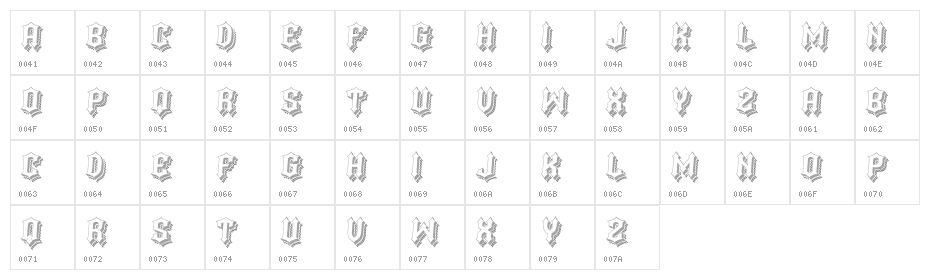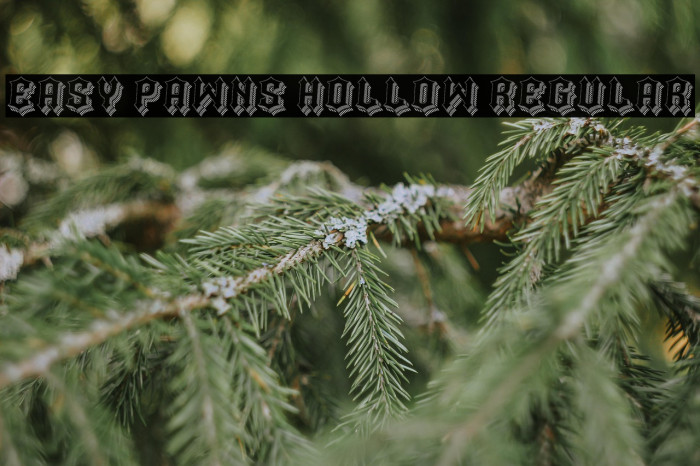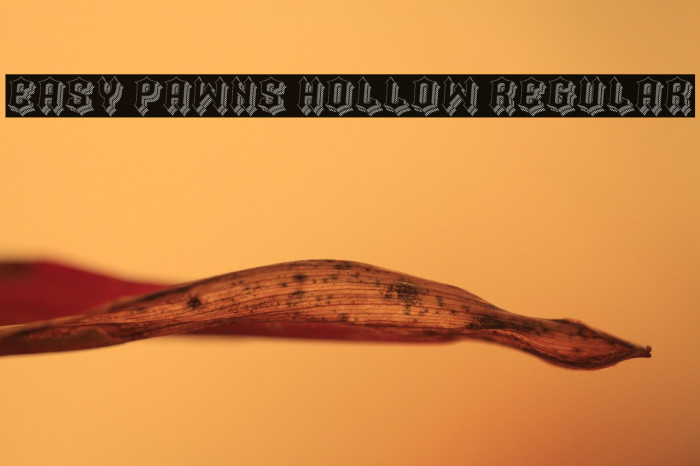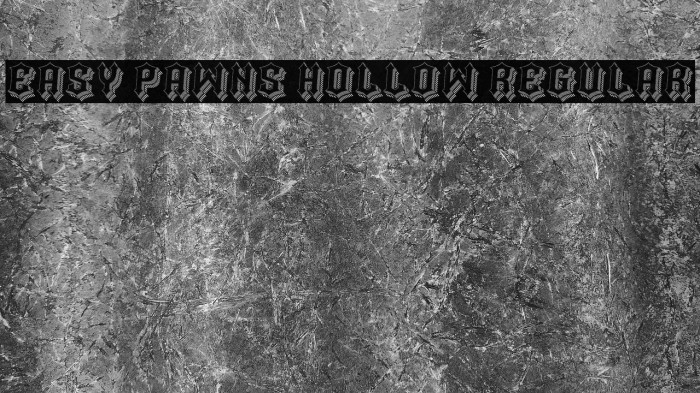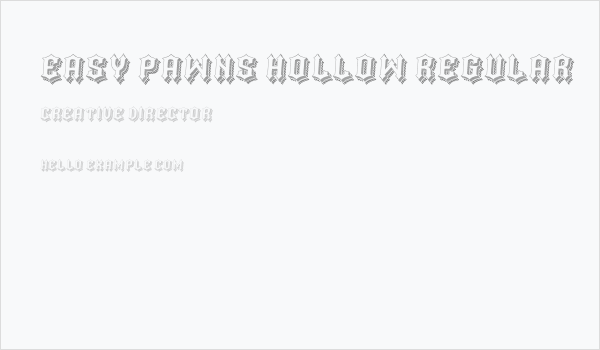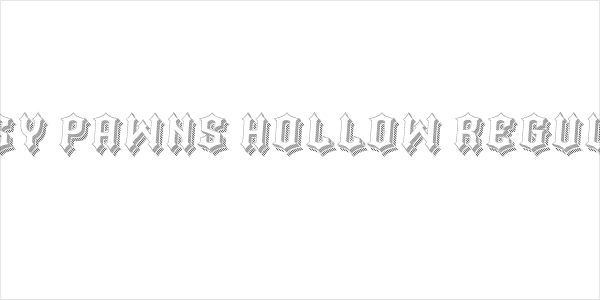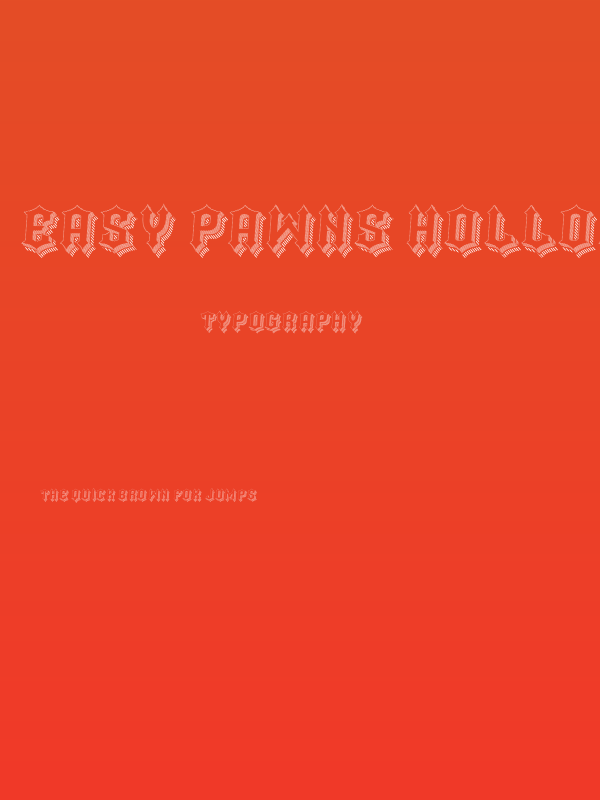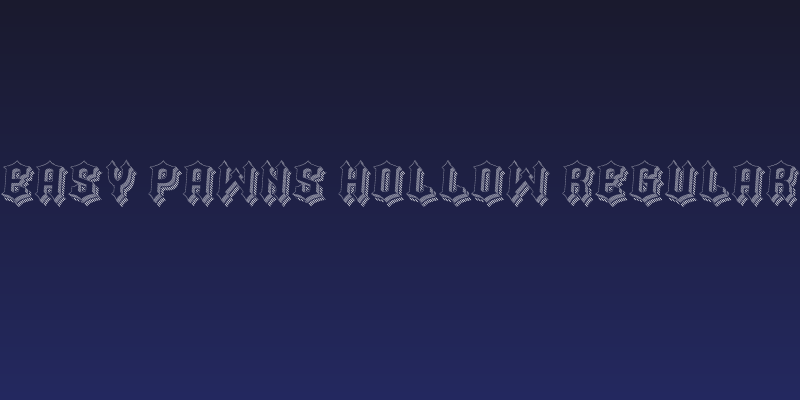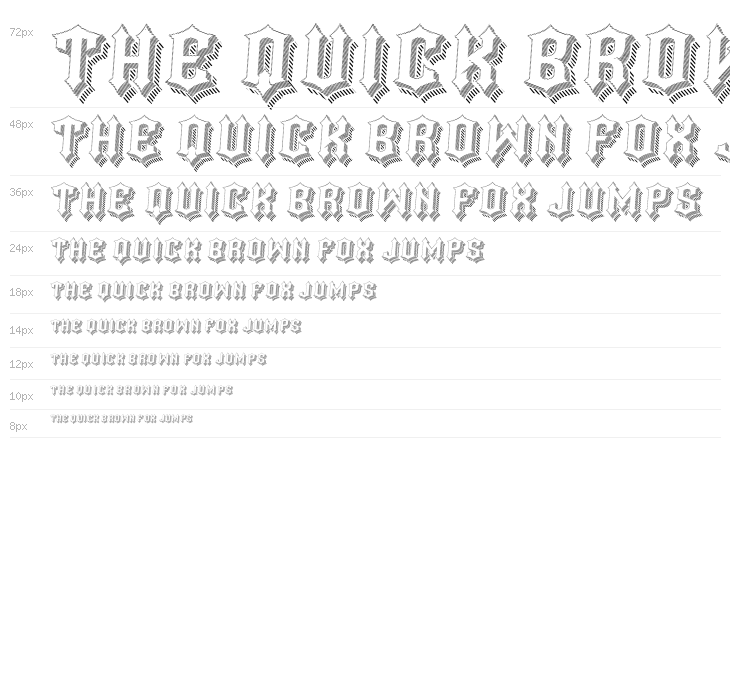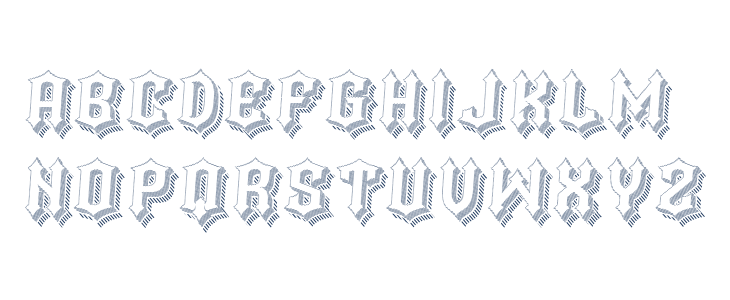
Easy Pawns Hollow Regular Font
Easy Pawns Hollow Regular Description
This font features a distinctive hollow design with a bold, decorative style. The characters are outlined with a shadow effect, giving them a three-dimensional appearance. The font exhibits a strong, angular structure reminiscent of traditional blackletter styles, yet it maintains a modern twist with its hollow interiors. The uppercase letters are particularly striking, with sharp serifs and intricate detailing. The overall aesthetic is both vintage and contemporary, making it versatile for various design applications.
| Proposed Projects | Ideal for use in branding, posters, album covers, and any project requiring a bold, eye-catching typeface. |